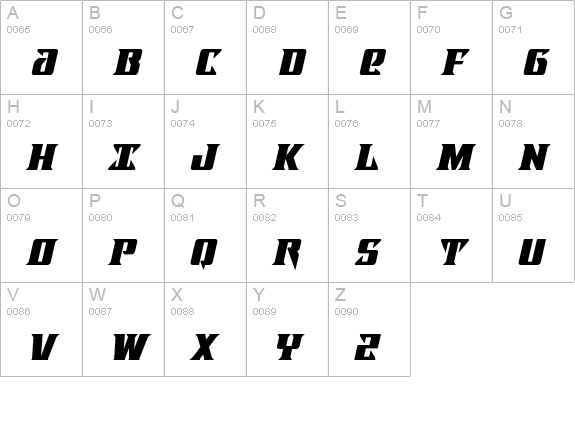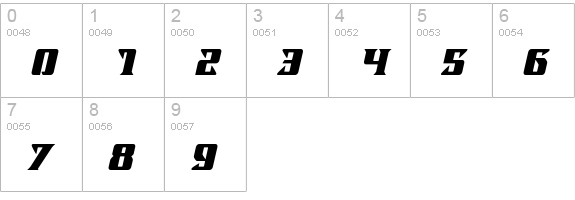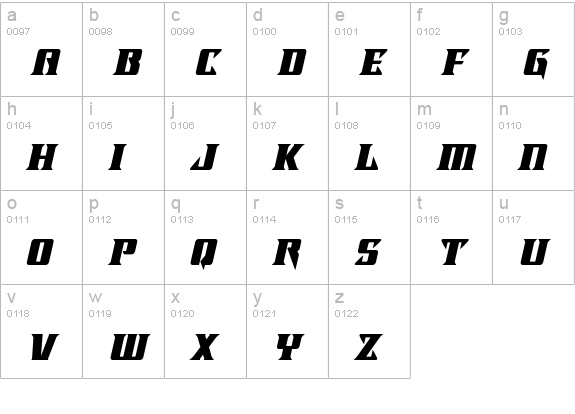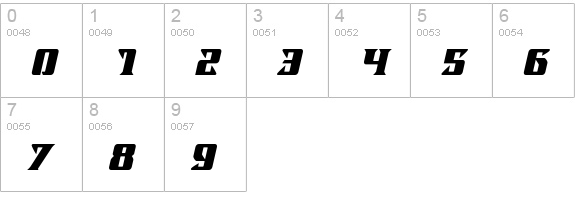
Lifeforce Font Details
Lifeforce is a donationware font in the Modern > Futuristic category, designed by Iconian. It has been downloaded 704 times and is available for Windows, Mac and Linux.
Introducing Lifeforce font, a stunning typeface that exudes elegance and sophistication. With its intricate details and unique design, Lifeforce font is sure to make a bold statement in any project. This modern font is perfect for branding, logos, posters, and more.